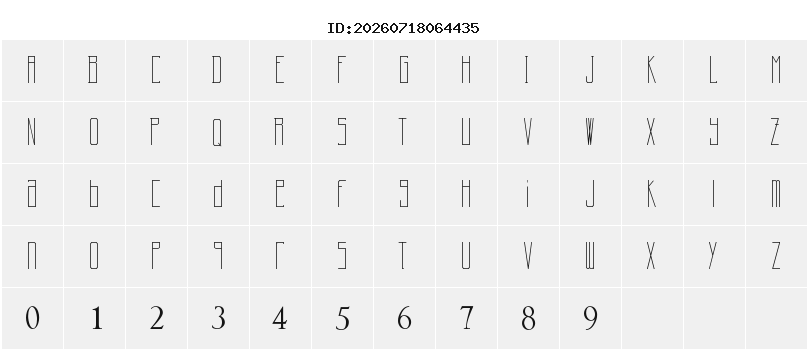
About CherryMoon.ttf
CherryMoon.ttf is a modern, elegant sans-serif font designed for ultimate readability and visual harmony. Perfect for branding, headlines, web design, and print materials.